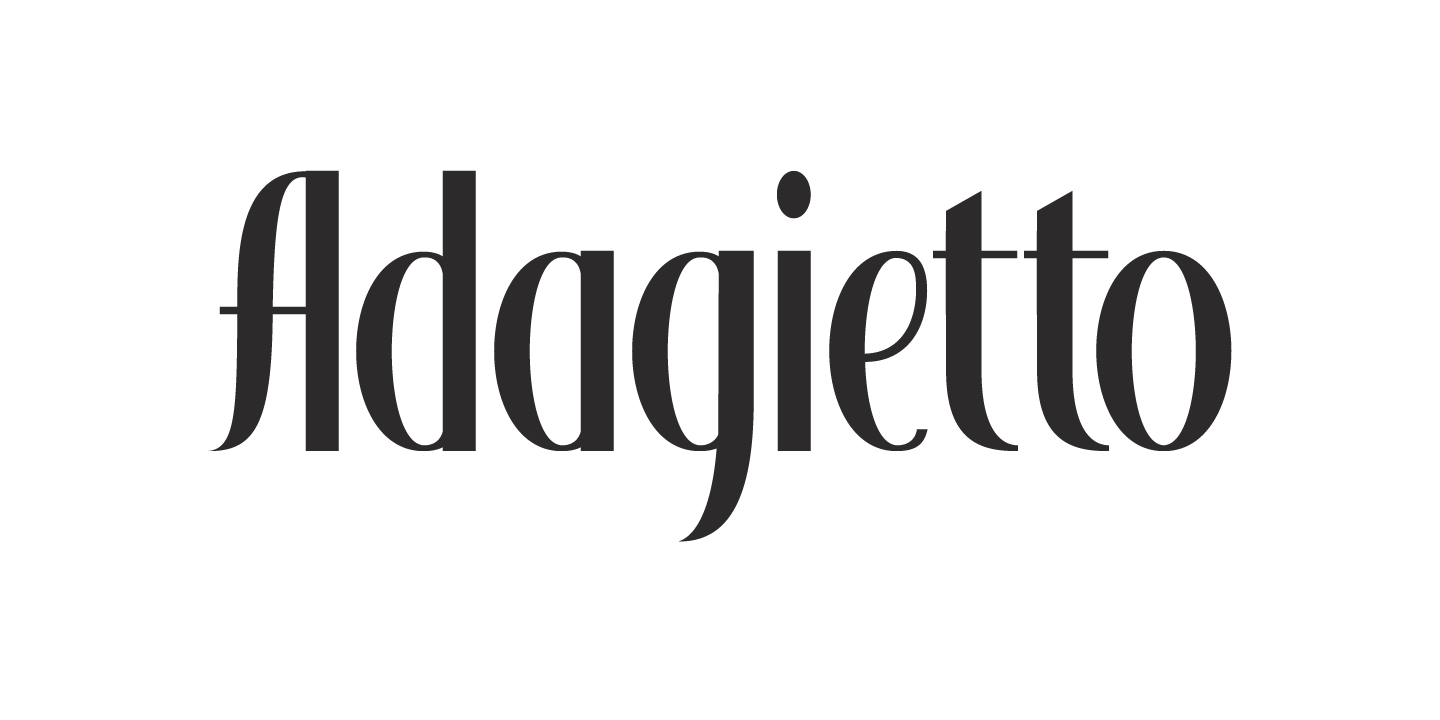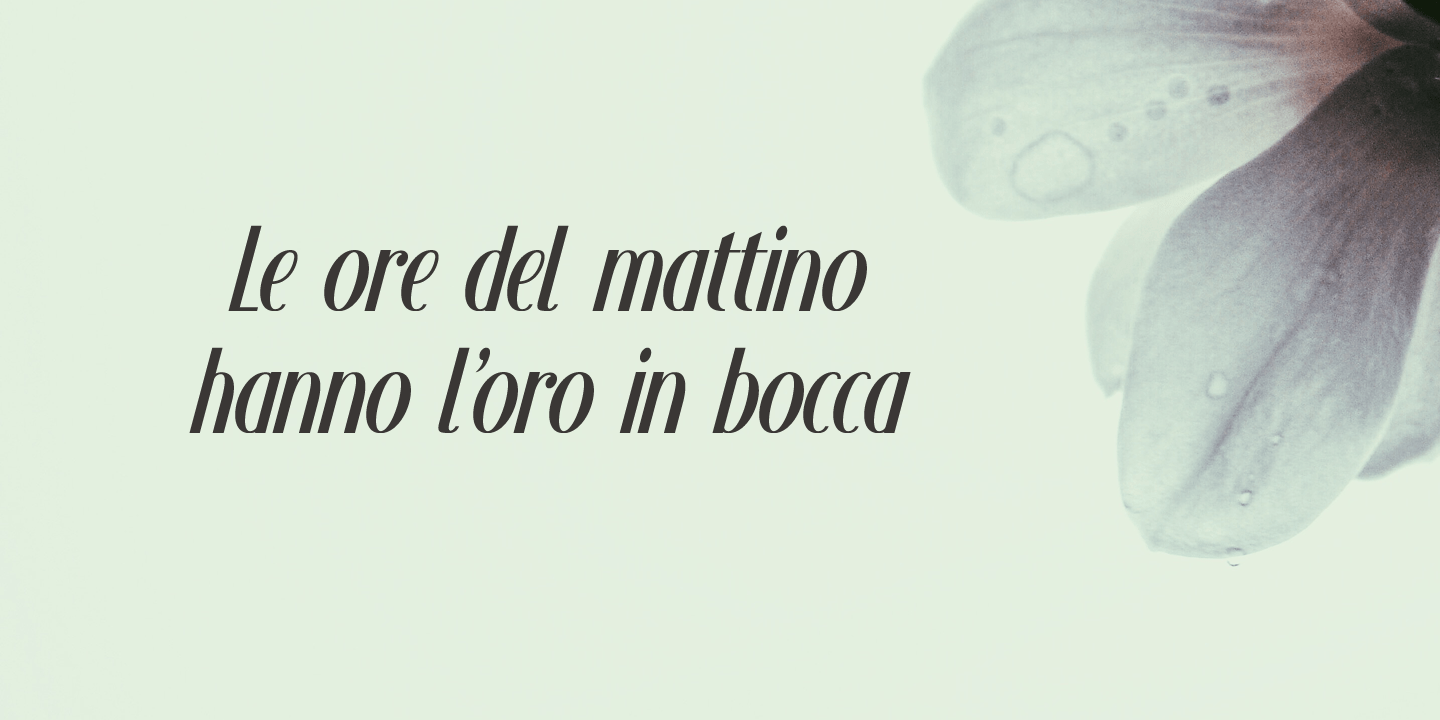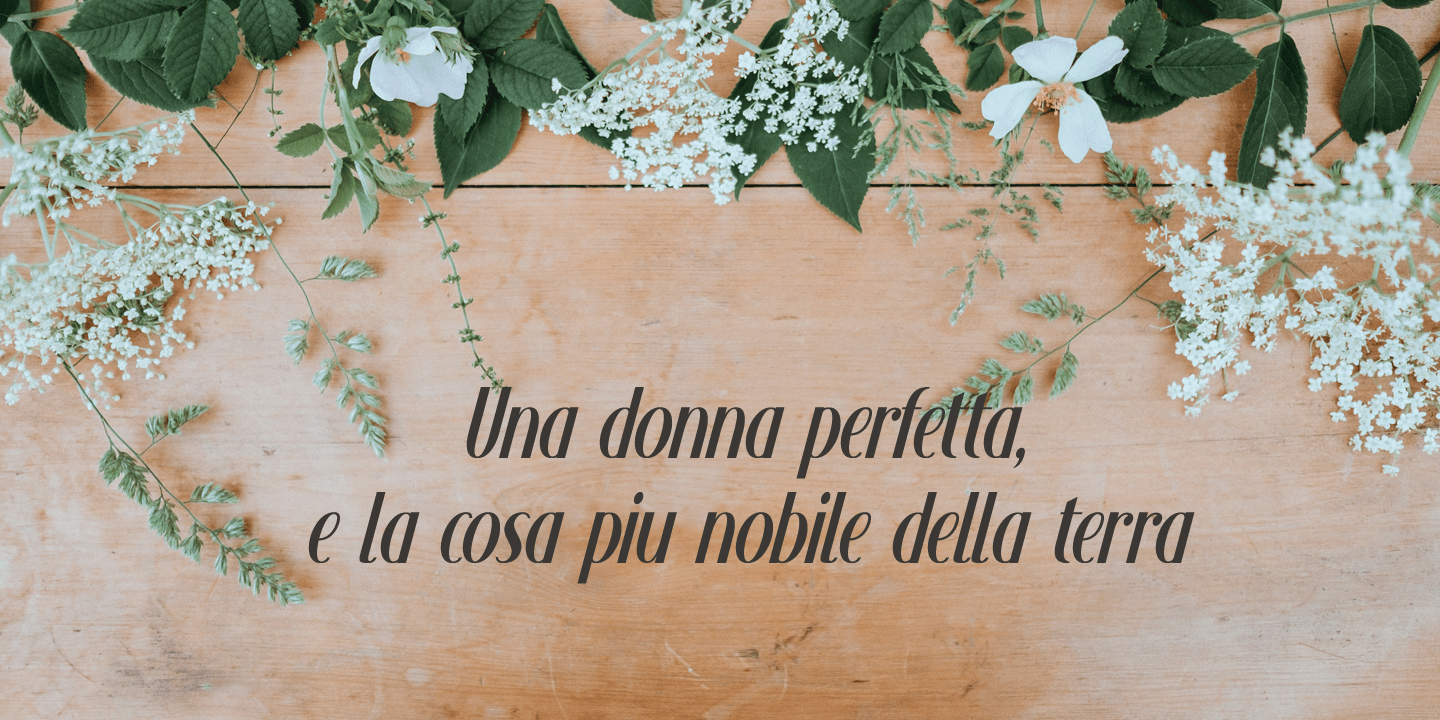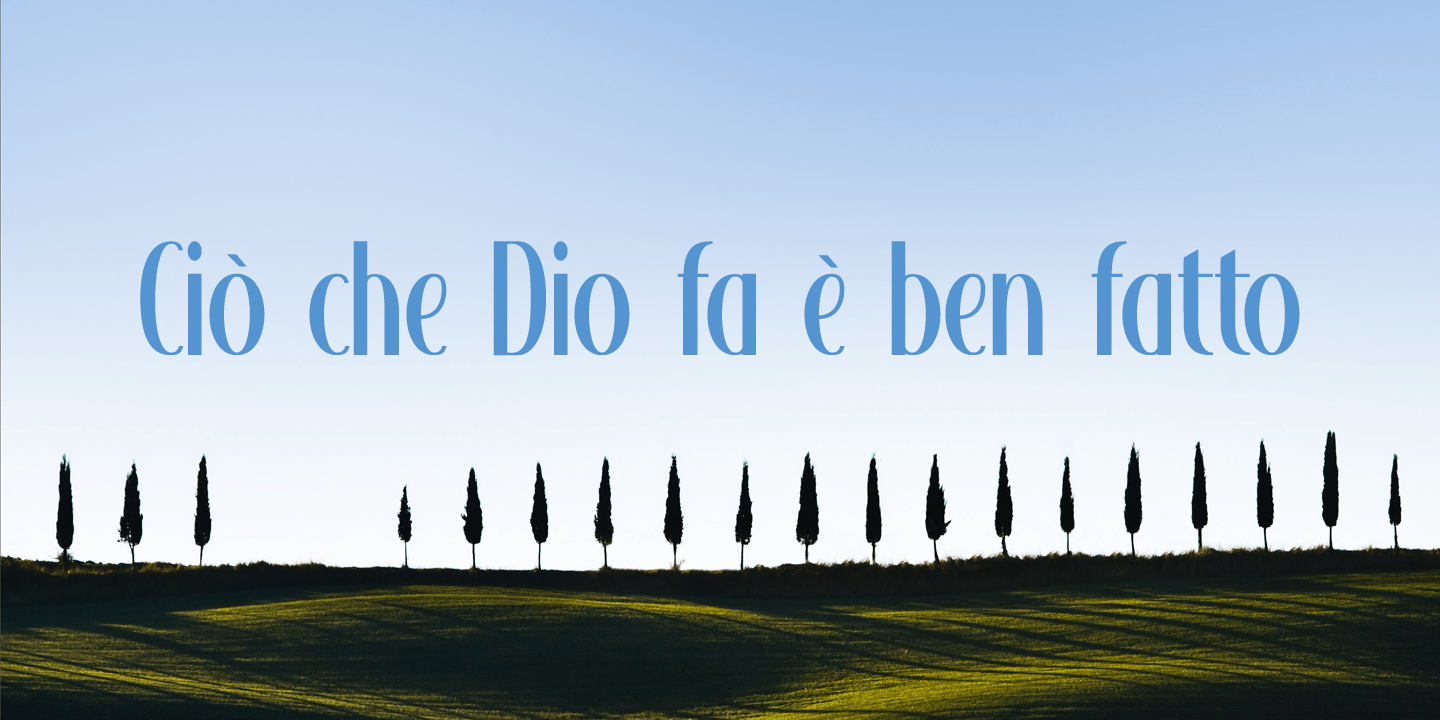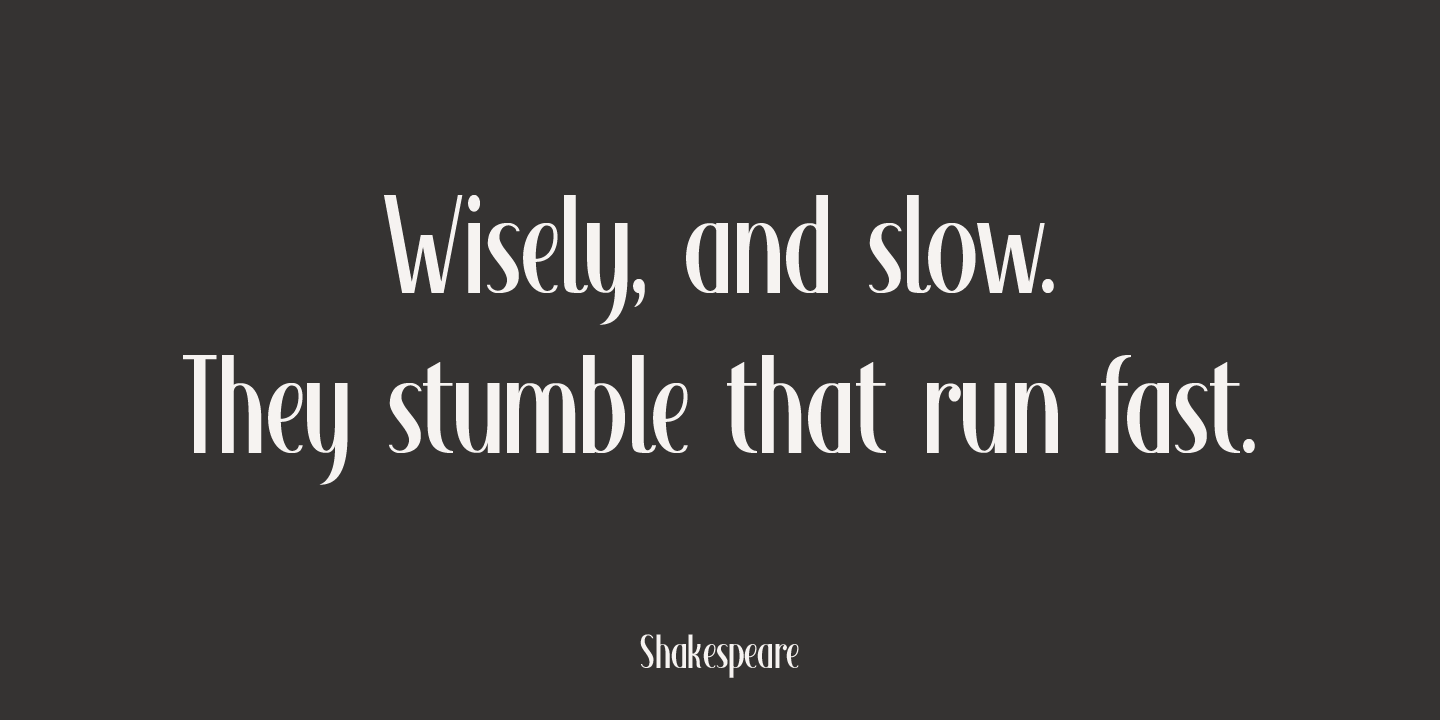
Adagietto
Adagietto is a musical term and means: ?fairly slow?. I wasn't in a rush to create this font, so the name kind of suits!
Adagietto is a classic font, ideally suited for posters, book covers and product packaging - and just about everything that needs a classy look.